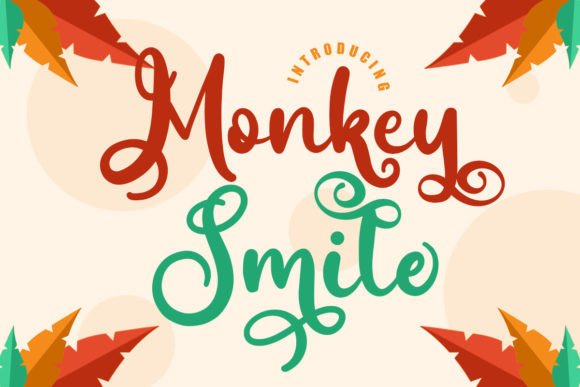
Embark on a whimsical journey with Monkey Smile Font, a captivating script font brimming with charm and character! This enchanting handwritten creation by Tabriiz is meticulously crafted, boasting intricate details that bring a touch of magic to every letterform.
Immerse yourself in the playful spirit of Monkey Smile Font, a font that evokes the joy of a mischievous smile. Its lively strokes dance across the page, inviting you to express your creativity with boundless imagination. Let your designs radiate warmth and personality, captivating your audience with the font's infectious charm.
Express your unique style with Monkey Smile Font, the perfect choice for adding a personal touch to your fashion designs. Its flowing script complements clothing lines effortlessly, creating an unforgettable visual experience that sets your brand apart. Let your garments speak volumes, conveying a message of fun, individuality, and unwavering optimism.
Unlock the endless possibilities of Monkey Smile Font, a versatile font that seamlessly blends with various themes and styles. Whether you're crafting whimsical invitations, designing eye-catching logos, or creating engaging social media posts, this font has you covered. Its adaptability knows no bounds, transforming your creations into works of art that leave a lasting impression.
Elevate your font collection with Monkey Smile Font, a font that inspires creativity like no other. Its enchanting aura adds a touch of magic to your designs, captivating your audience with its playful spirit. Download Monkey Smile Font today and embark on an extraordinary creative adventure, where imagination reigns supreme and designs come to life with a smile!